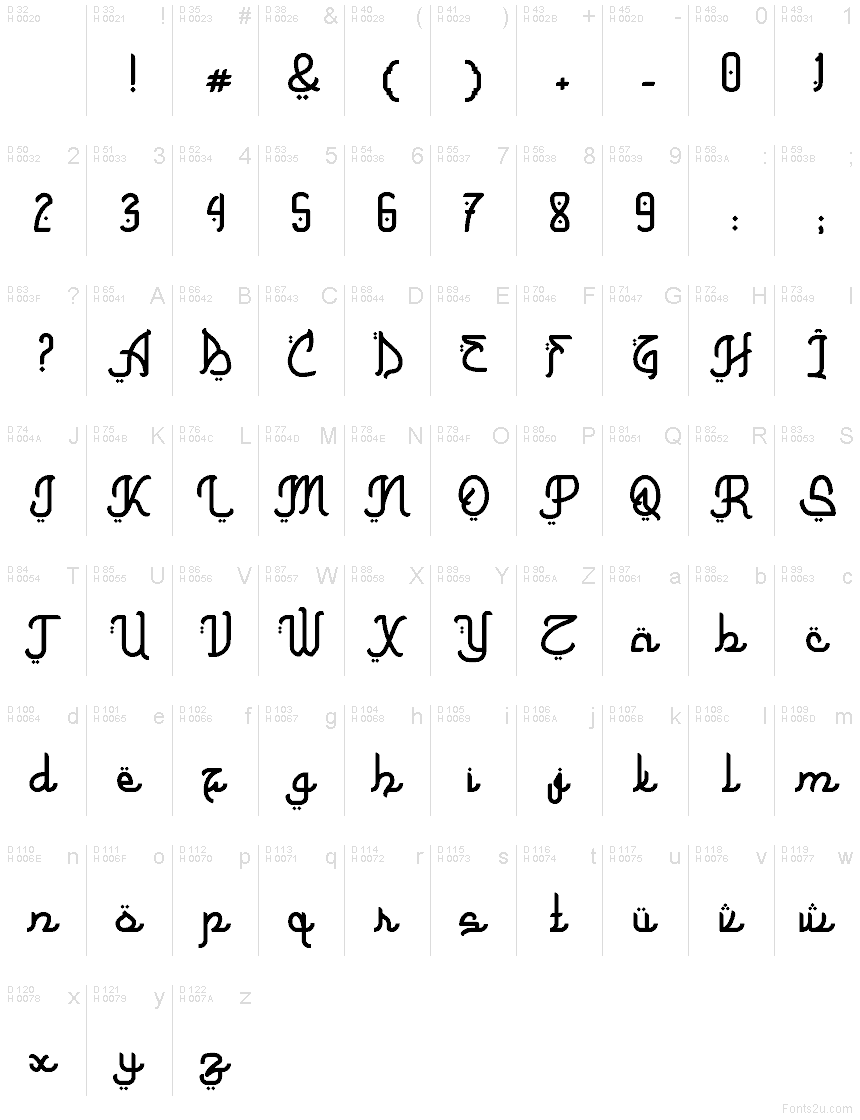
Jamillah Regular
Jamillah font by Creatype Studio is a free bold decorative Arabic-style display font. It stands out with tall, incense-stick verticals, smooth monoline curves, and jewel-like dots that feel carved rather than drawn. The strokes are dense and inky yet controlled, giving headlines a flowing, connected rhythm without sacrificing legibility.
Using Jamillah, your titles snap into a distinctive Middle Eastern mood that works beautifully for restaurant identities, spice or tea packaging, festival posters, boutique signage, editorial headers, and social graphics. This free font’s rounded counters and steady weight help it scale cleanly from badge-sized marks to oversized banners. Pair it with a neutral grotesque sans for body copy and let Jamillah carry the headline voice.